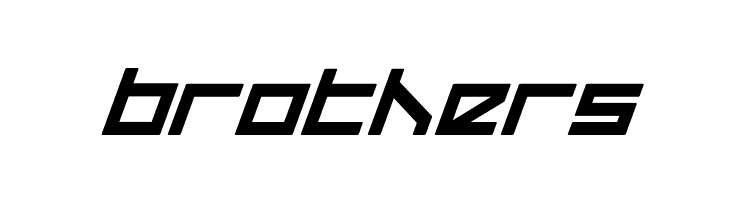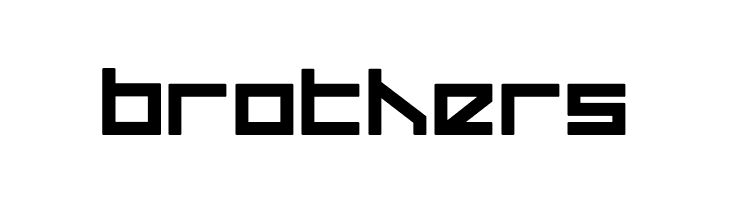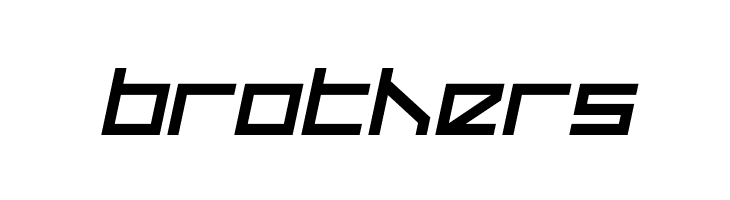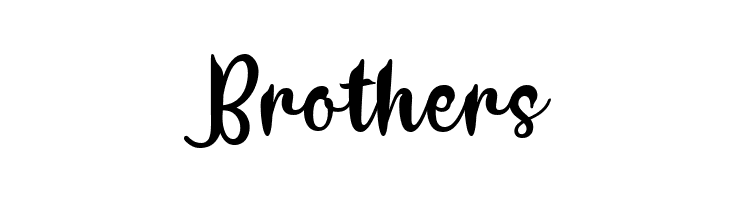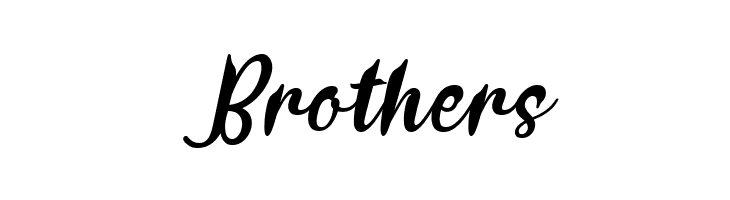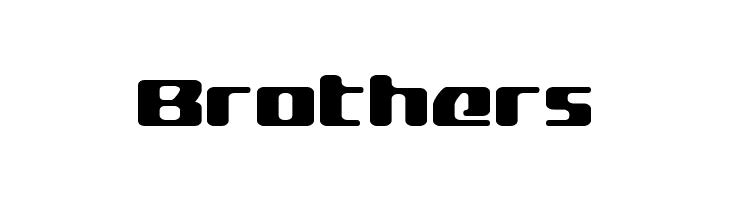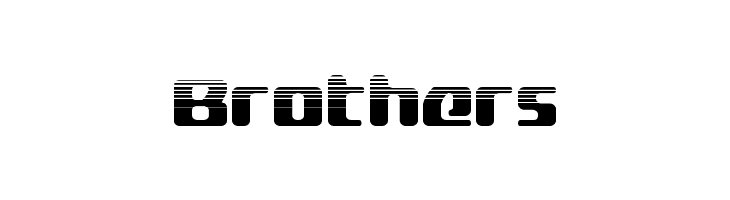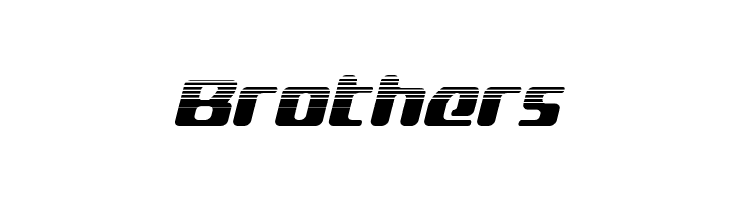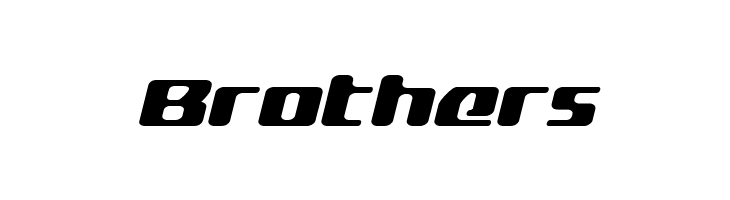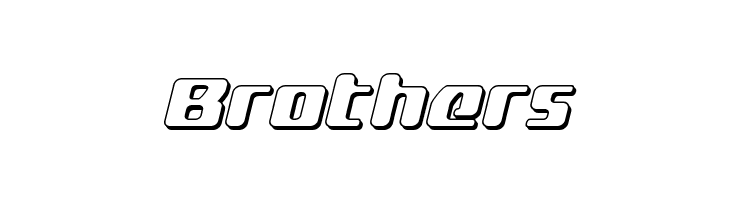
A dynamic and elegant script font with fluid strokes and sophisticated flair.
A bold, graffiti-inspired font with sharp angles and a three-dimensional look.
A bold, expressive script font with fluid, dynamic strokes.
A modern sans-serif font with geometric shapes and uniform stroke width.
A playful, handwritten font with smooth curves and a casual style.
A smooth, flowing script font with an elegant italic style.
A bold, abstract font with a fragmented, chaotic style.
A bold, vintage-style font with ornamental serifs and a gothic flair.
A modern serif font with elegant, refined letterforms and excellent readability.
Elegant, bold italic serif font with medium contrast and condensed spacing.
A classic serif font with elegant strokes and refined design.
An elegant, italic serif font with moderate contrast and a modern, professional style.
A classic serif font with elegant serifs and balanced stroke contrast.
A bold, italic serif font with elegant curves and a classic style.
A classic serif font with elegant strokes and moderate contrast.
An elegant italic font with smooth, flowing lines and a modern aesthetic.
A playful collection of devilish character illustrations in a cartoonish style.
An ornate, medieval-inspired font with intricate flourishes and bold characters.
A bold, playful, hand-drawn style font with rounded characters.
A bold, festive font with snowflake accents, perfect for winter themes.
A bold, festive font with a snowy, decorative style.
A playful and elegant script font with flowing, cursive letterforms and medium contrast.
A clean, minimalist sans-serif font with an extra-light weight and modern appeal.
A dynamic and elegant script font with flowing letterforms.
A modern, geometric font with rounded edges and uniform stroke width.
A bold, handwritten font with a playful and dynamic style.
An artistic and decorative font with abstract, bold designs and unique patterns.
A whimsical, hand-drawn font with tall, narrow characters and playful flourishes.
A geometric, modern font with consistent stroke width and angular design.
A modern, elongated font with sharp angles and a slight slant.
A flowing, script-style font with elegant, continuous strokes.
A flowing, elegant cursive script with interconnected characters.
A high-contrast, elegant serif font with dramatic strokes and sharp serifs.